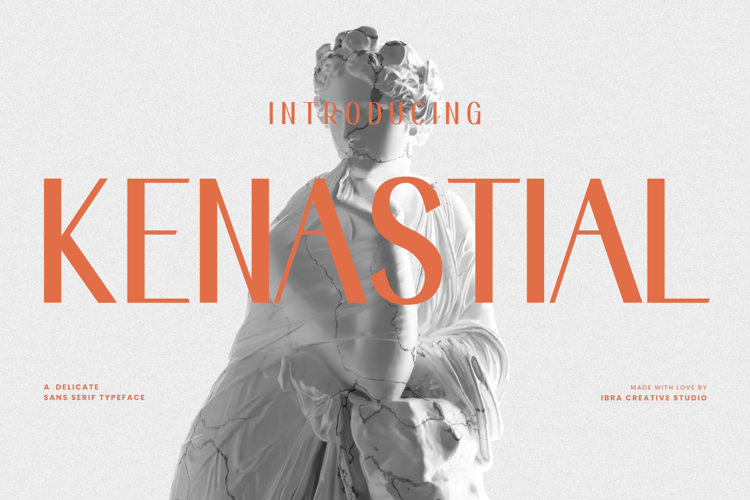
Kenastial Font
About Kenastial Font
Kenastial, a delicate sans-serif typeface, epitomizes elegant simplicity with its refined and harmonious design. The font boasts clean lines and well-balanced proportions, creating a graceful and modern aesthetic that is both timeless and versatile.